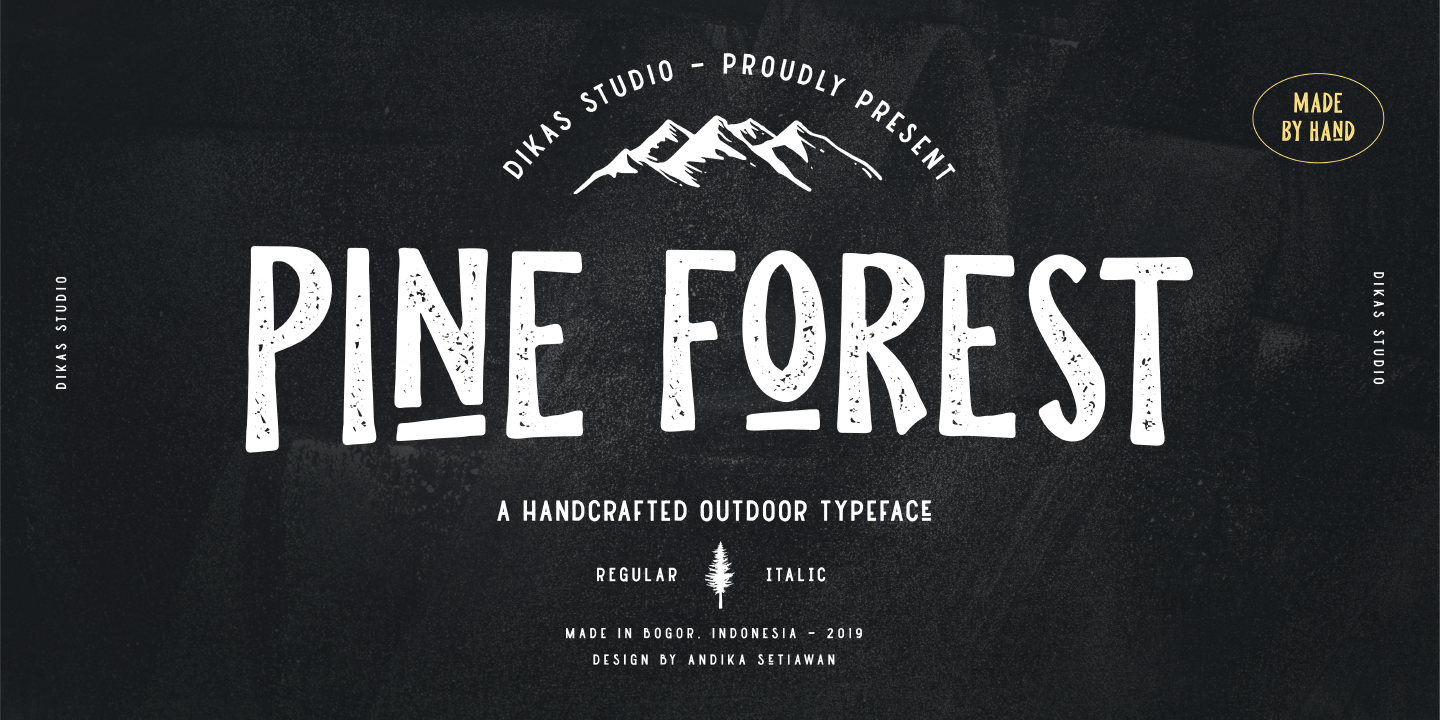
Bring the organic beauty of the wilderness into your projects with the Pine Forest Font Free Download! This charming hand-drawn typeface features natural imperfections and rustic character, perfect for outdoor brands, eco-friendly packaging, wedding invitations, and nature-themed designs.
Why Choose Pine Forest Font?
The Pine Forest Font Free Download captures the essence of hand-painted wooden signs and forest craftsmanship. Its unique features include:
Authentic Handmade Look - Slightly uneven strokes mimic real brushwork
Uppercase & Lowercase Letters - Full character set for versatile designs
Alternate Glyphs - Multiple versions of key letters for custom combinations
Camping/outdoor brands
Organic product packaging
Rustic wedding stationery
Nature blog graphics
Design Applications
Logo designs for eco-conscious businesses
Product labels for natural goods
Social media graphics with earthy appeal
Book covers for nature publications
Designer Tip: Combine with wood textures and leaf illustrations for maximum natural impact!